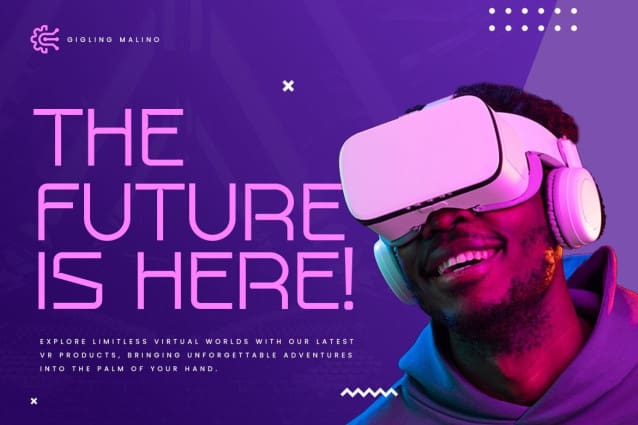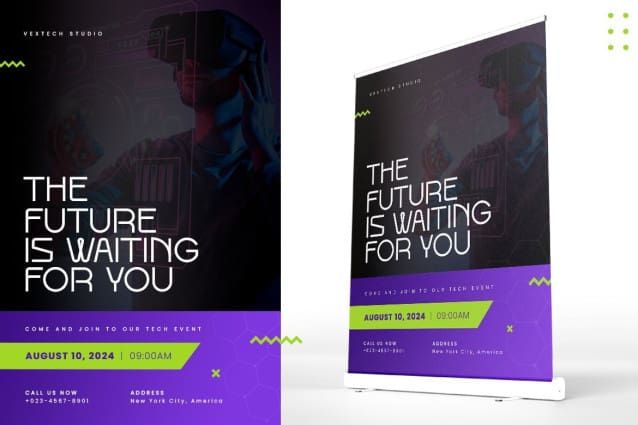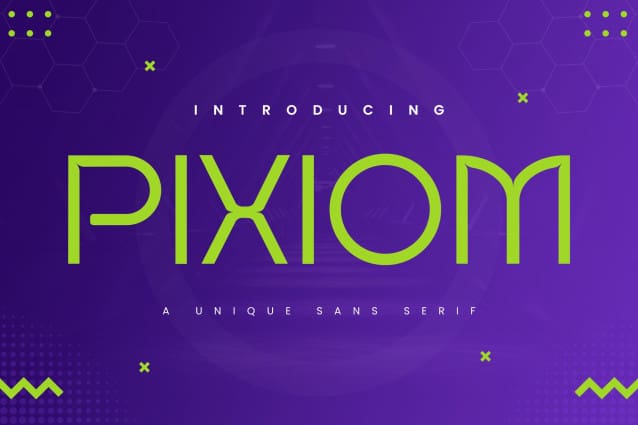
Pixiom Font
Pixiom Font is a sleek and contemporary sans serif typeface that stands out with its clean geometric design. Designed to bring clarity and style, Pixiom Font is perfect for modern brands, digital interfaces, editorial layouts, and minimalist projects. Its distinctive letterforms bring a fresh take on a classic sans serif style, making it versatile for both print and digital use. Whether you need a font for sleek logos, attractive websites, or eye-catching posters, Pixiom adds a refined and elegant touch to any design.